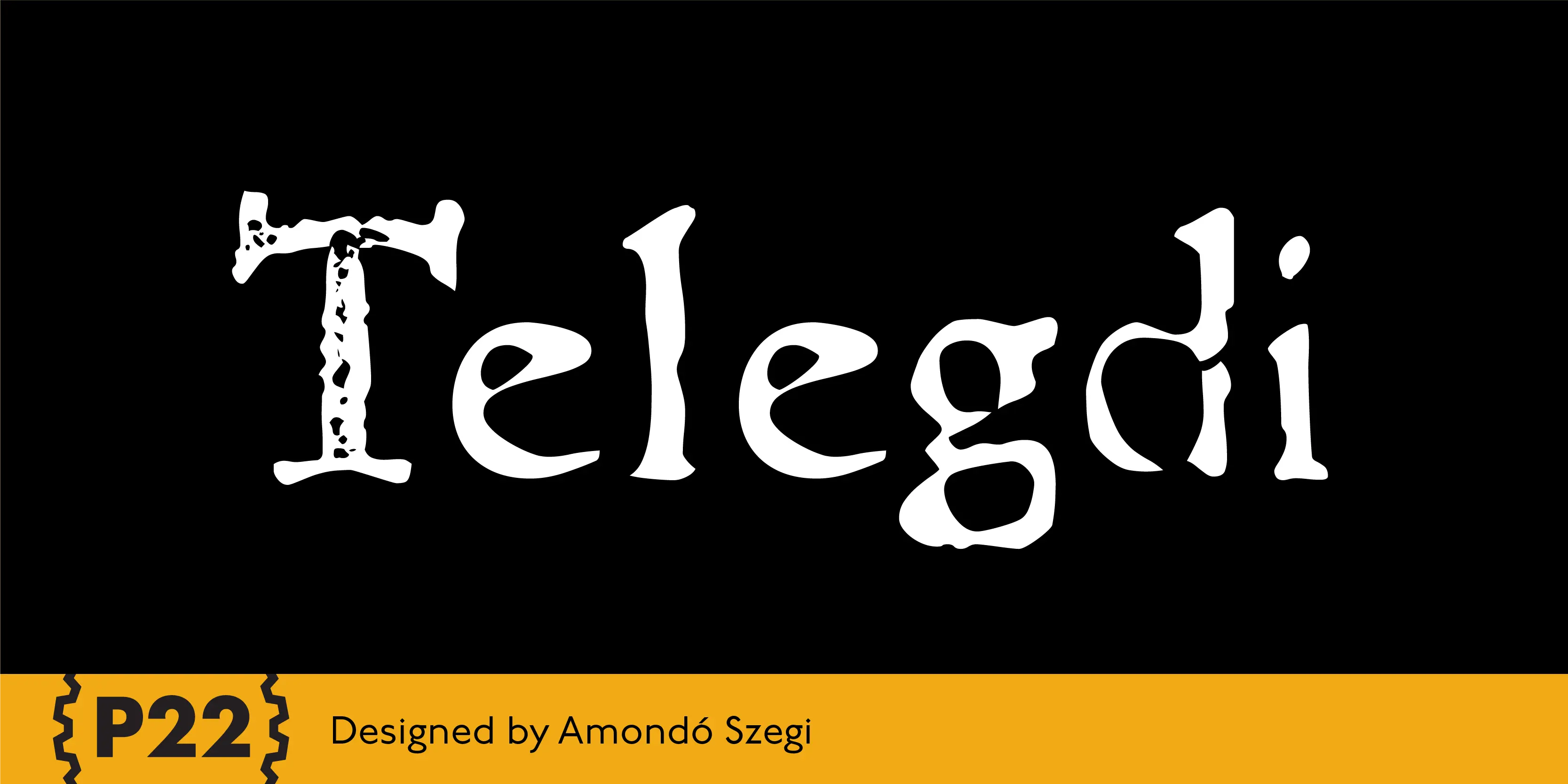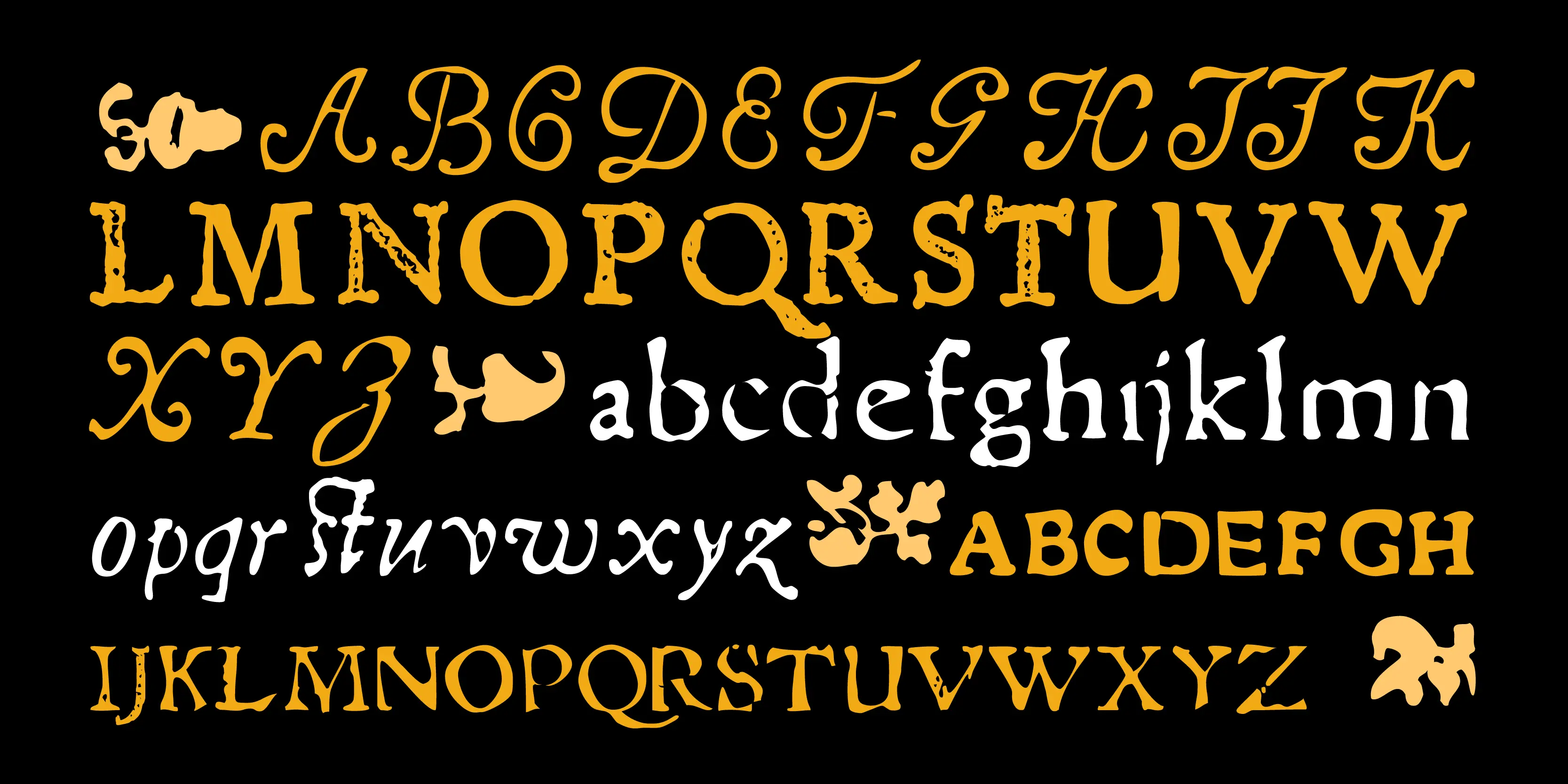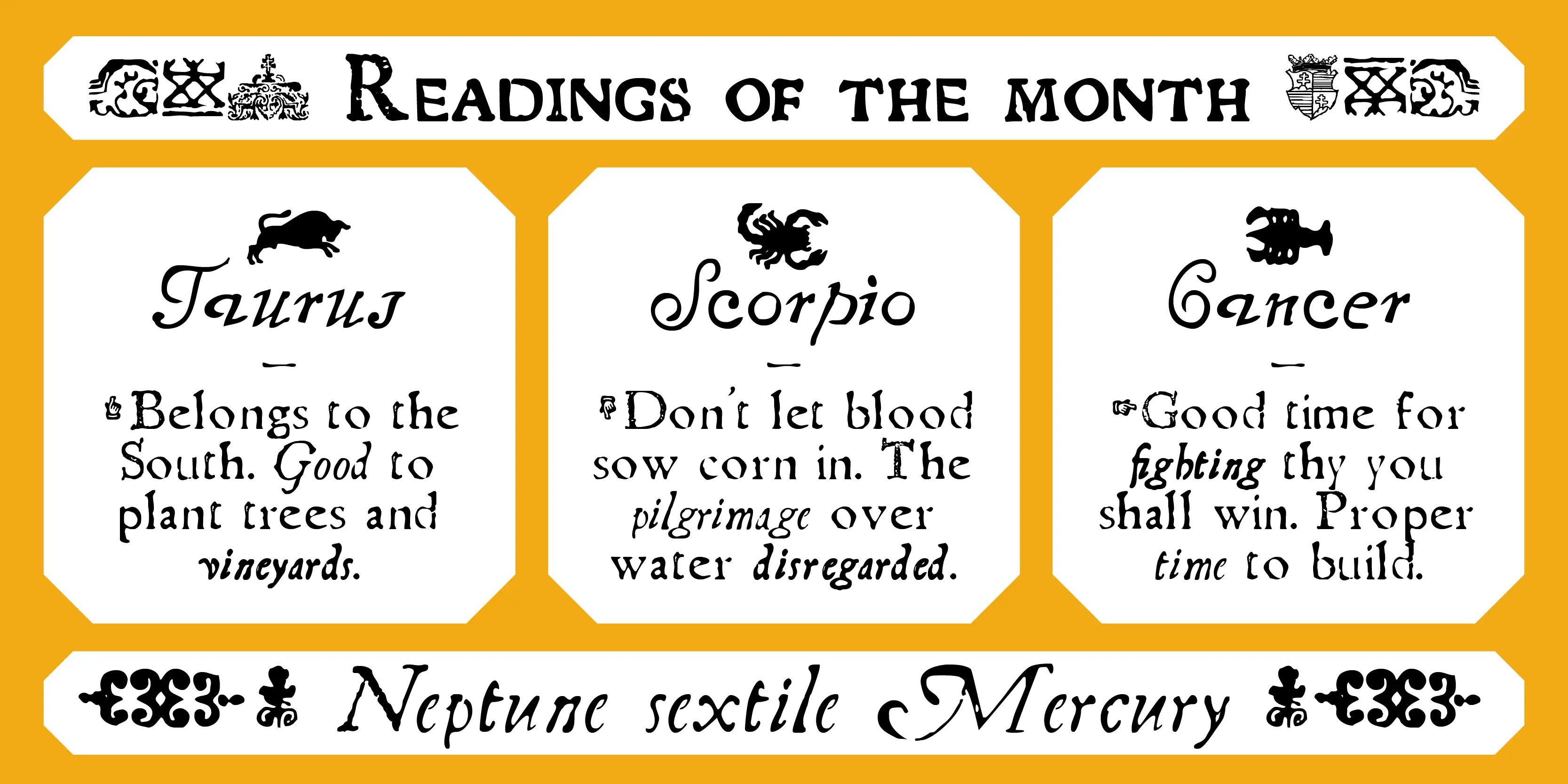
Telegdi Font Family
Telegdi
Abbot Nicolaus Telegdi purchased the Vienna Jesuit press in 1577 and started to work immediately with its own worn typefaces. His first works were publications of his own speeches. The Telegdi Pro family of fonts contains 9 styles that evoke a historical feel with its authentic, highly distressed style. All fonts contained in the Telegdi Pro family are compatible with applications such as Microsoft Word that do not support OpenType features. To access the expanded character sets and OpenType features which provide broader linguistic support and more precise typographic control, applications such as Adobe CS Illustrator and InDesign are required.